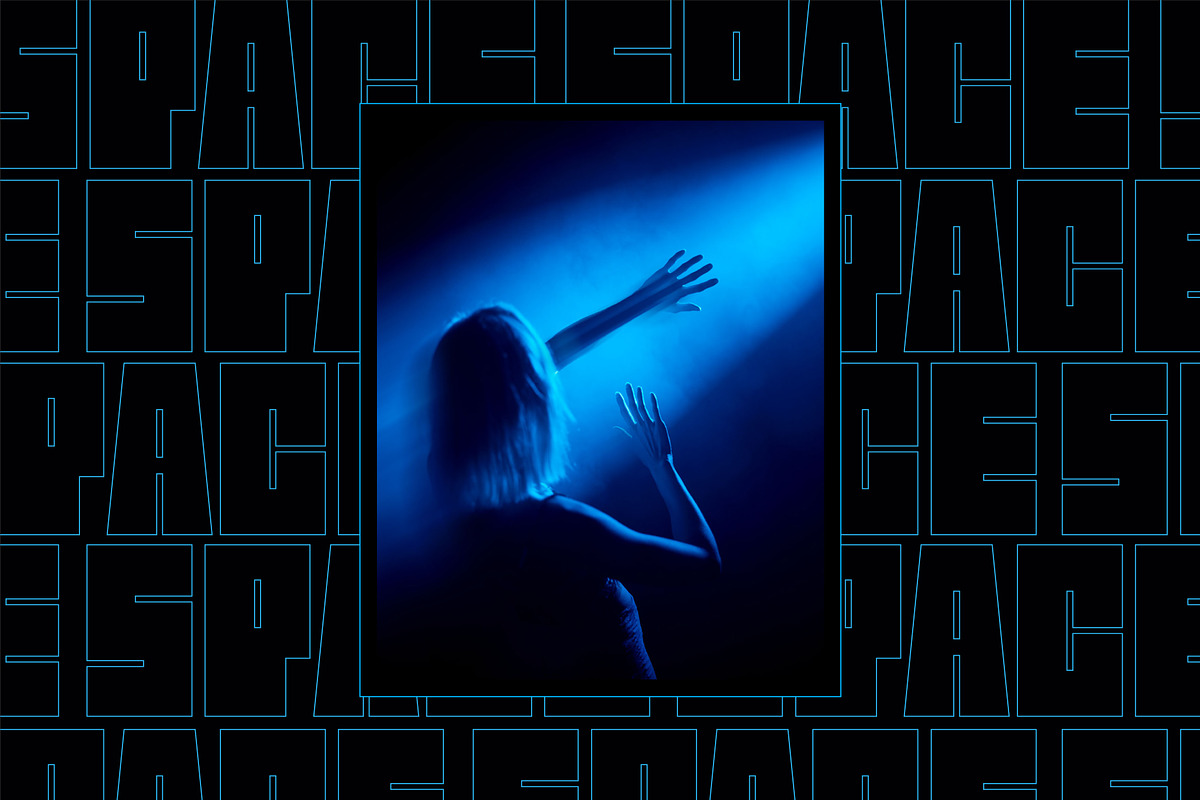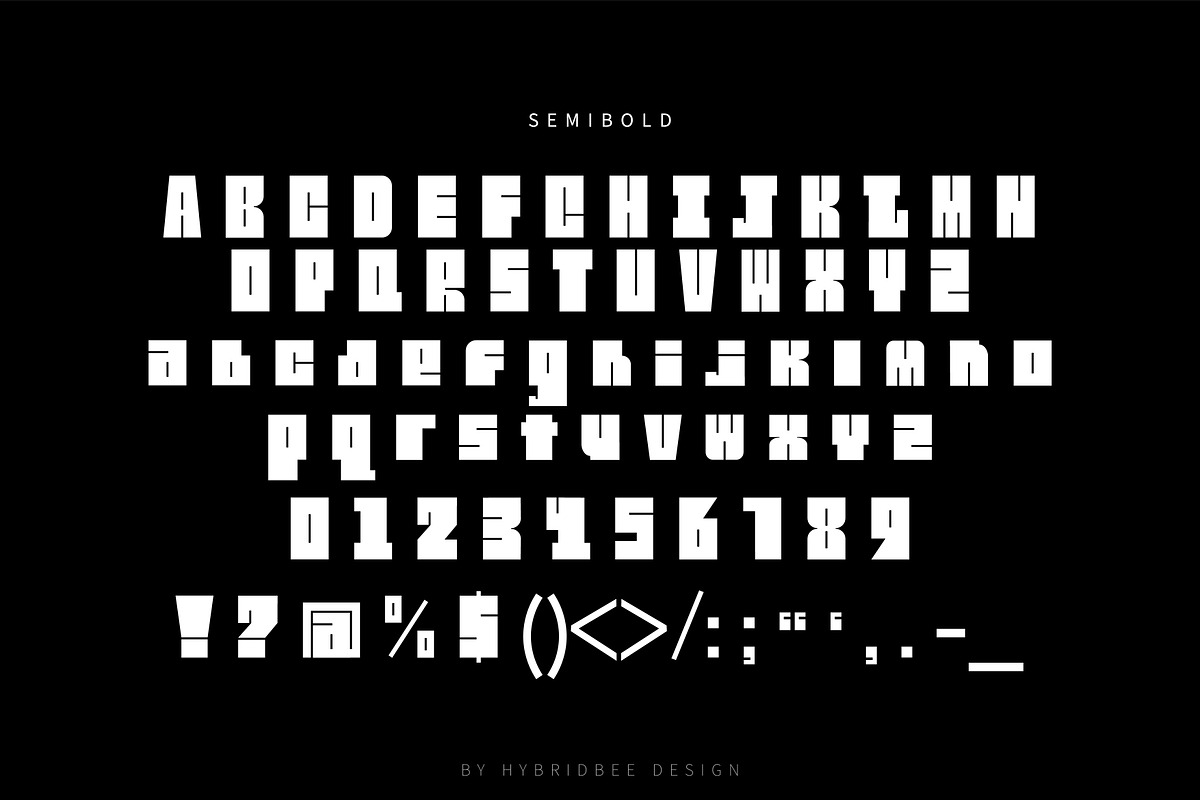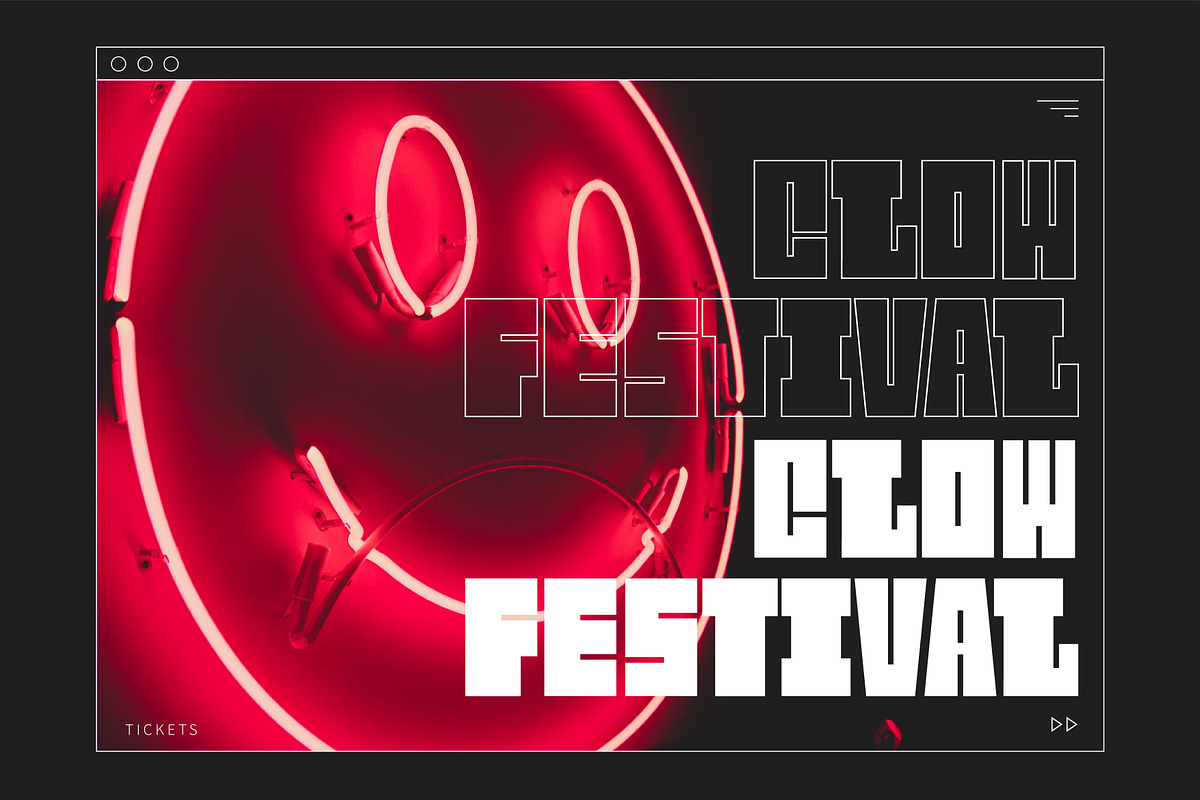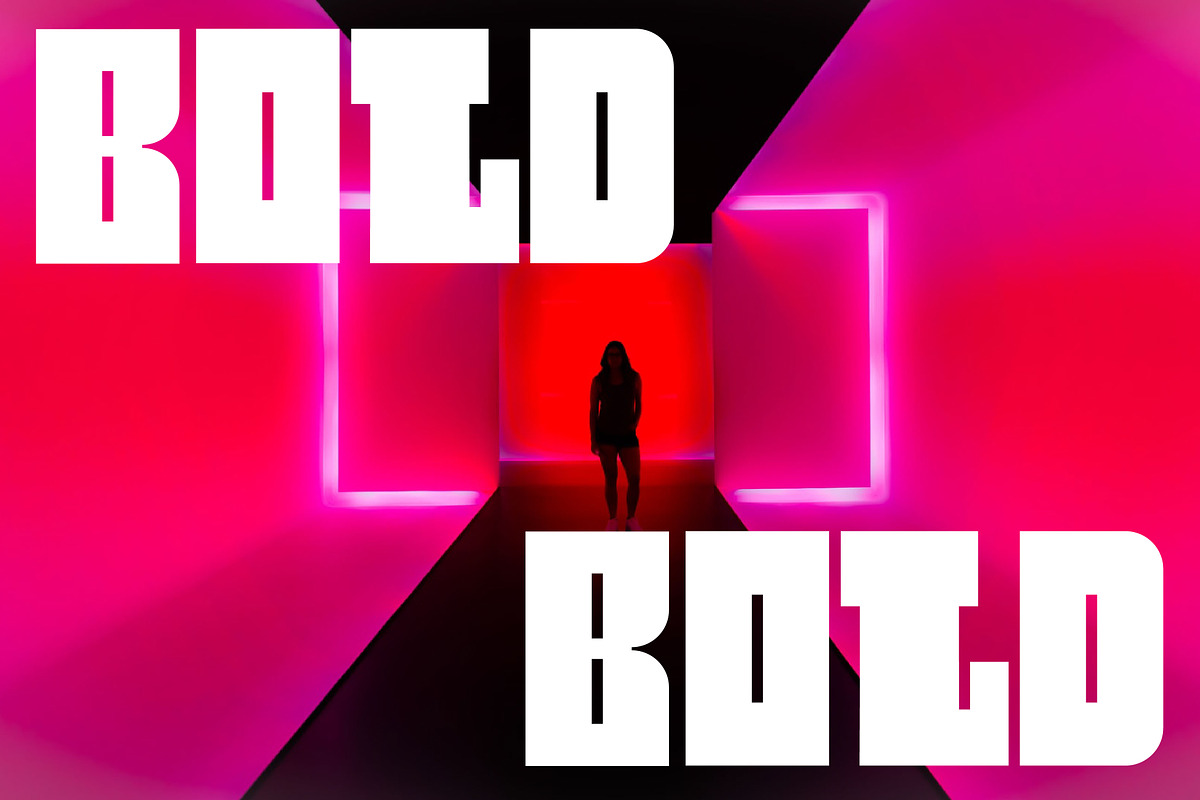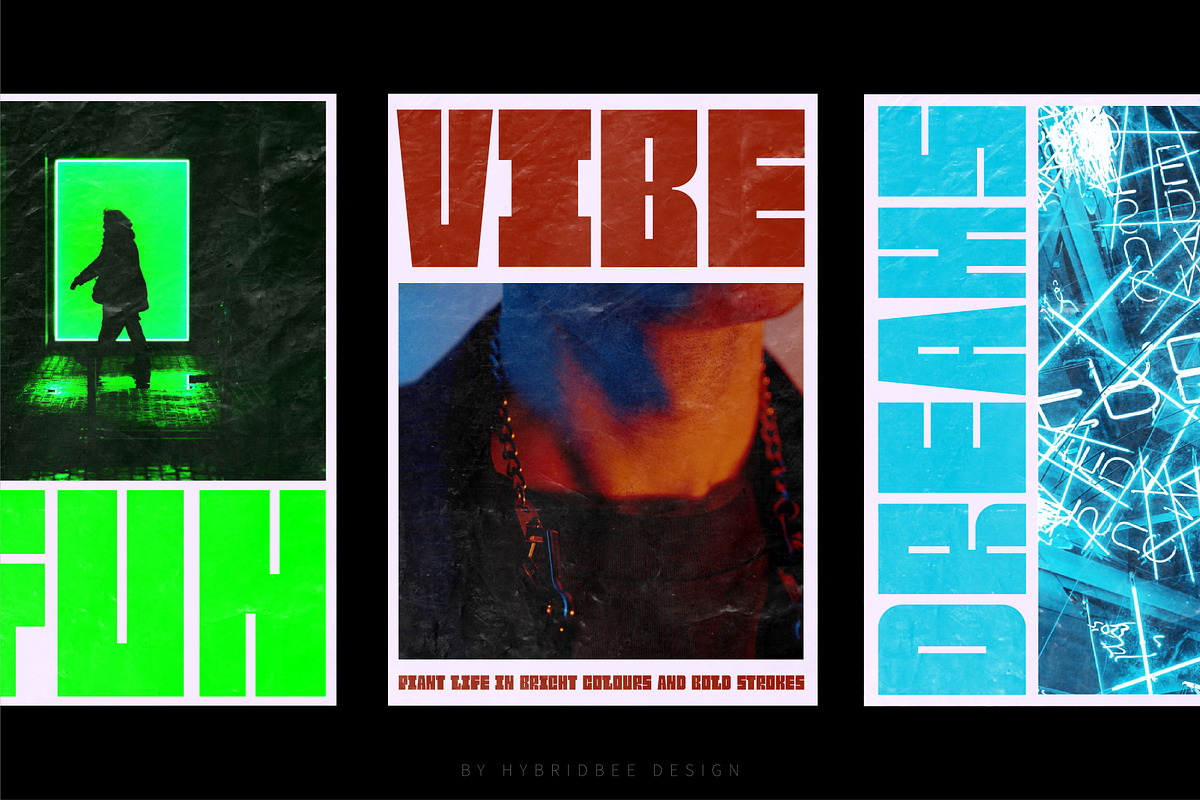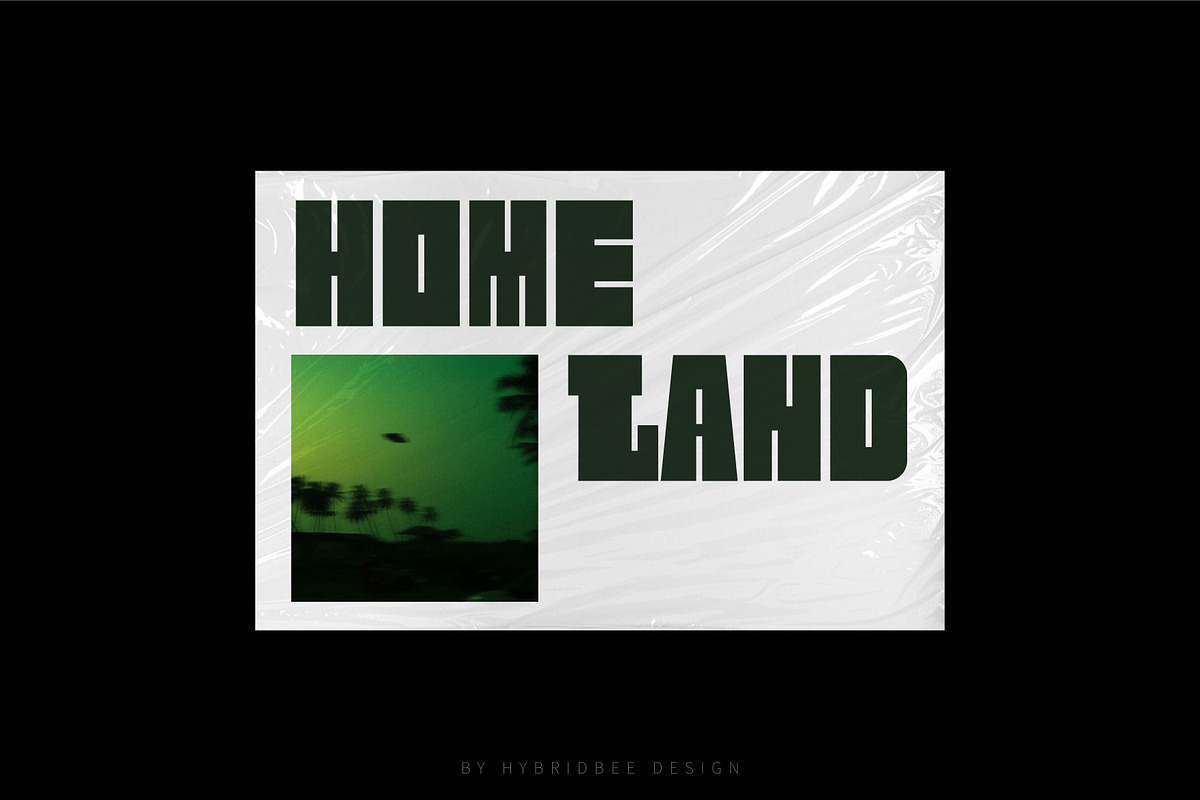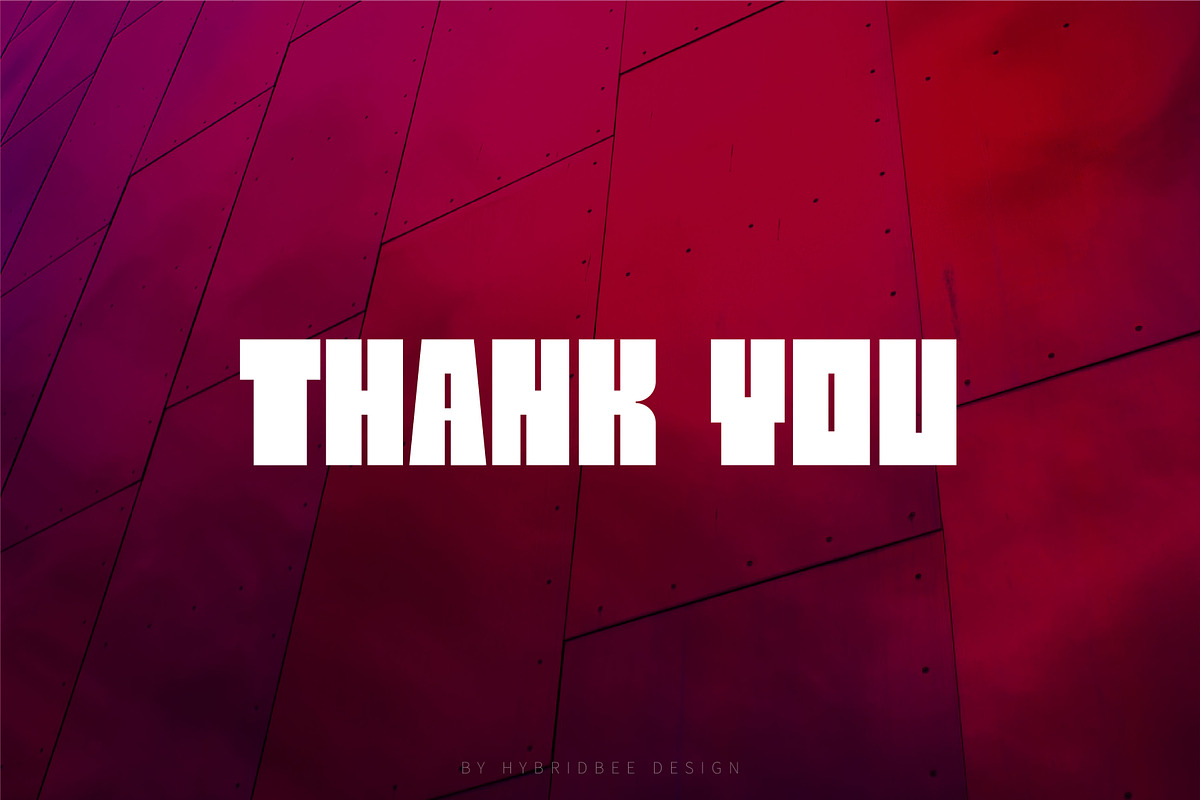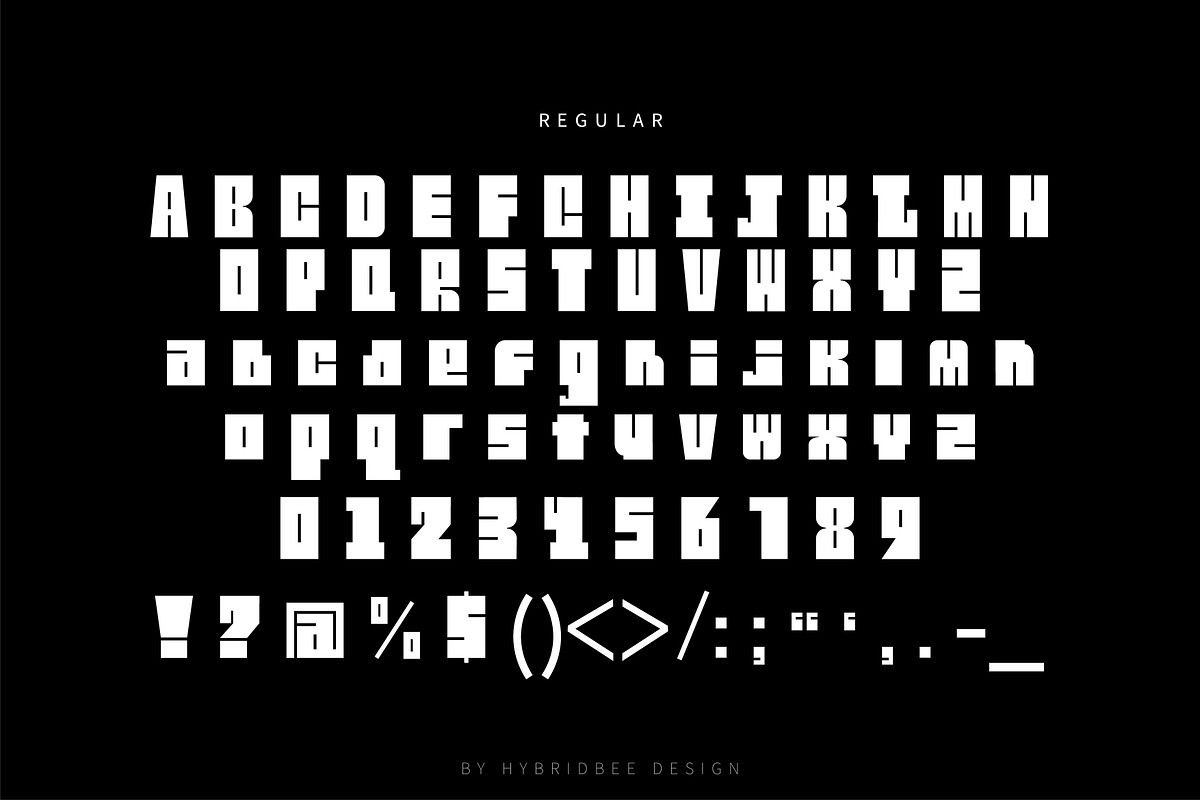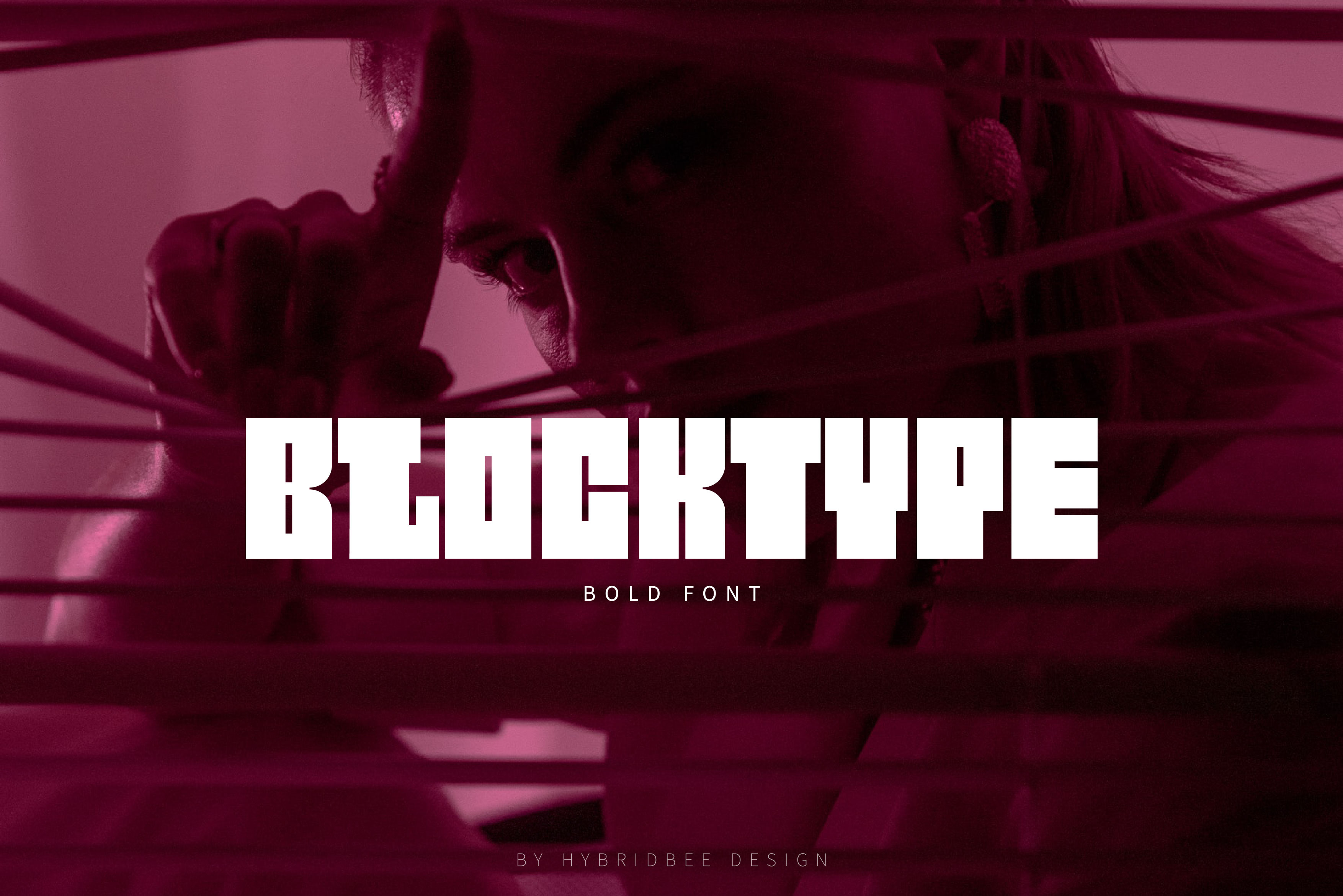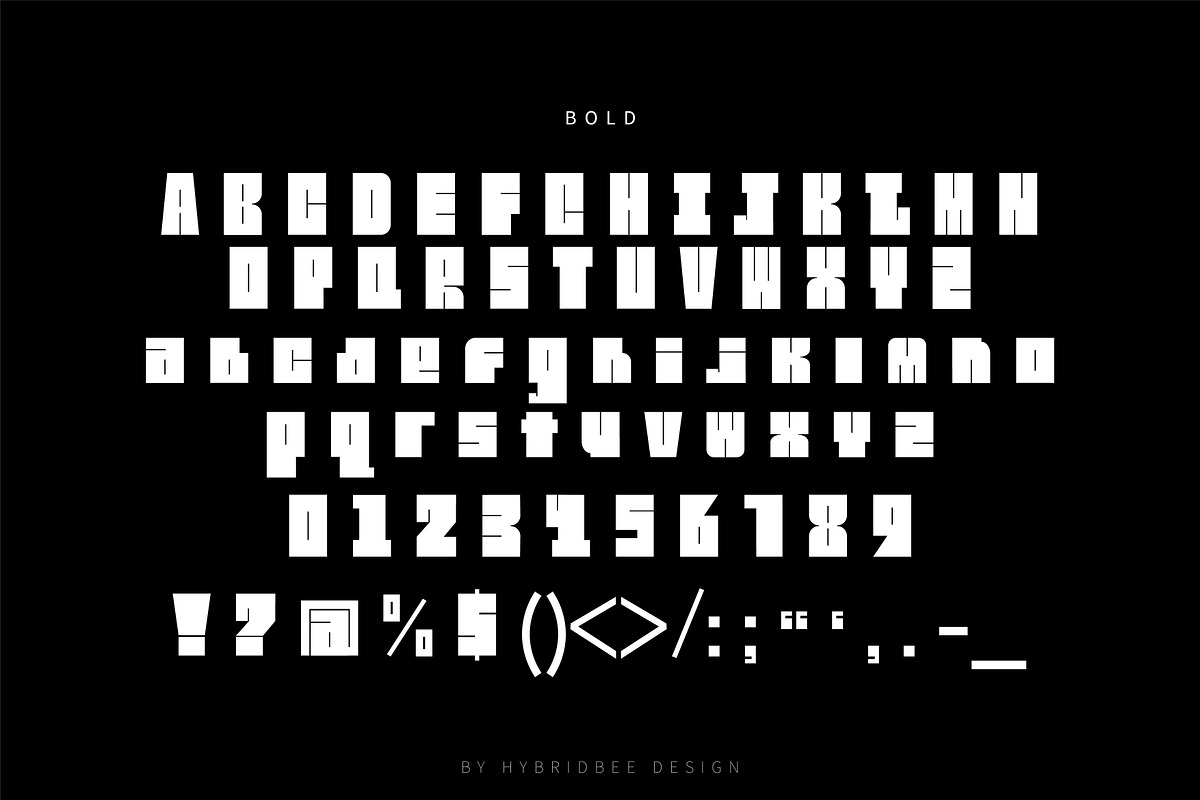
BLOCKTYPE – Bold Display Font
Blocktype is a bold display font with a contemporary and distinct look. It includes uppercase letters, lowercase letters, numerals, and some punctuations in three weights: regular, semi-bold and bold. It gives a strong and striking vibe, and can be used to create posters, headlines, branding, packaging, logo, web design, etc.